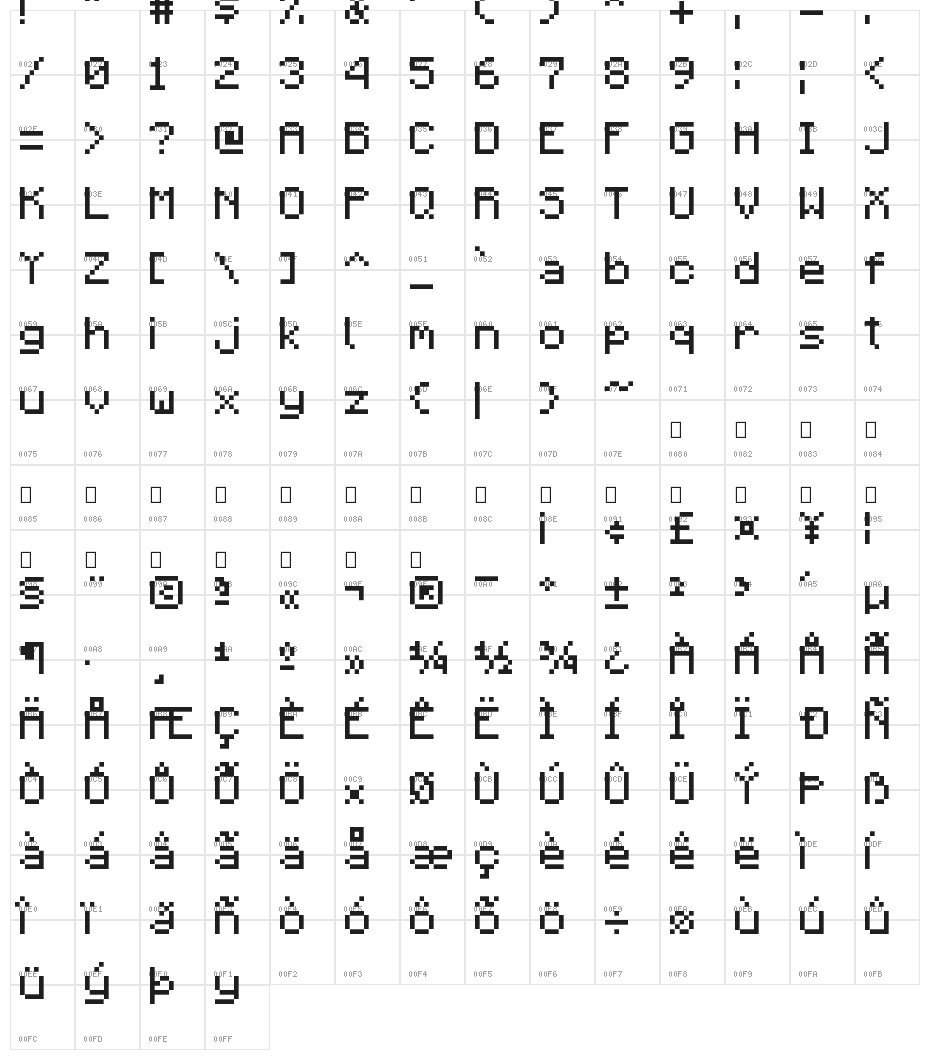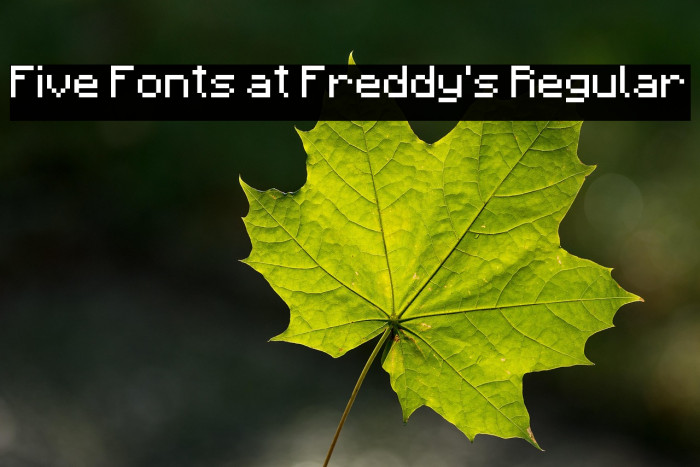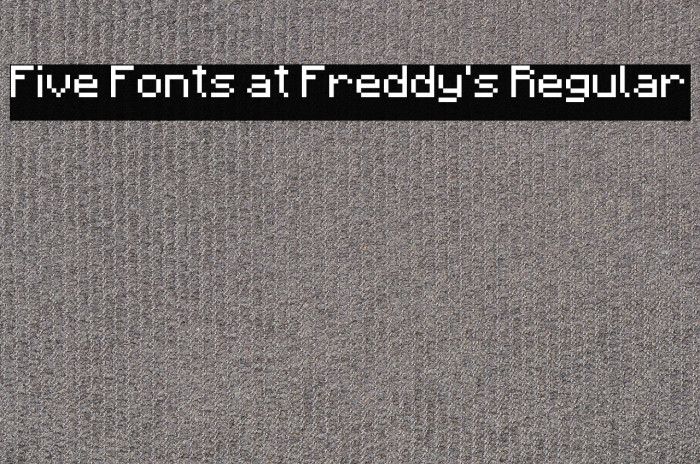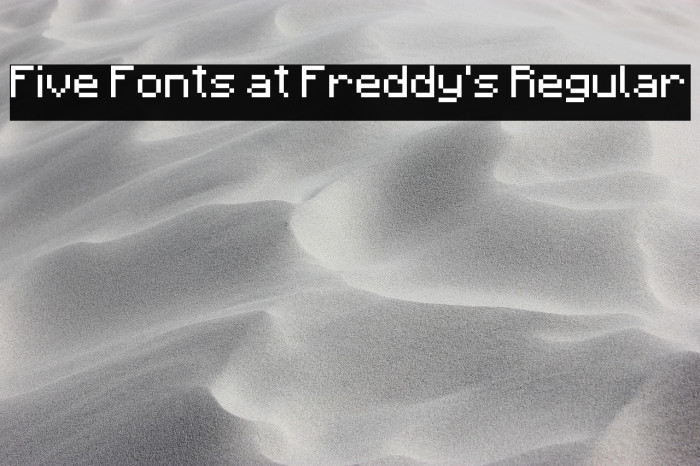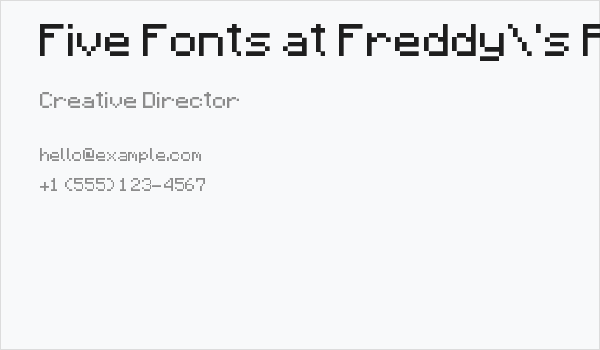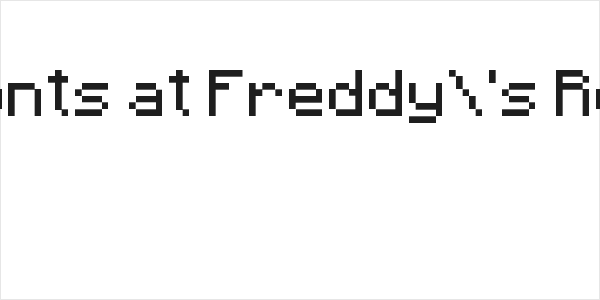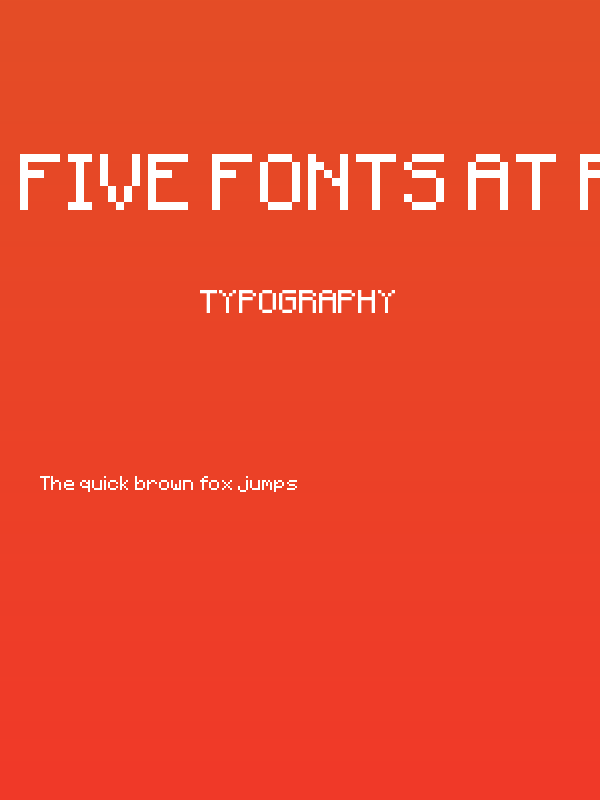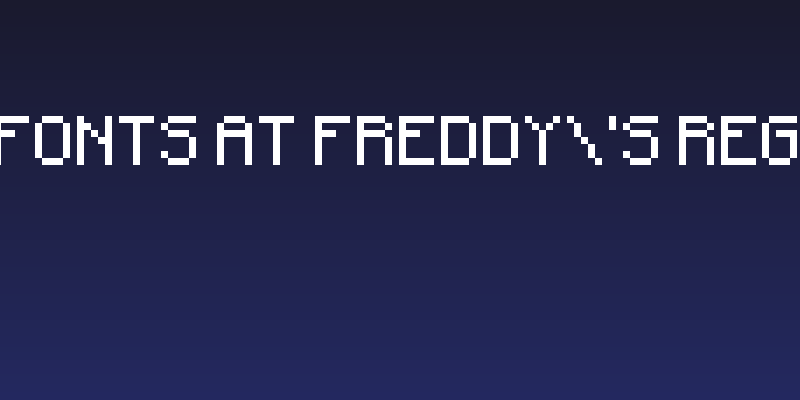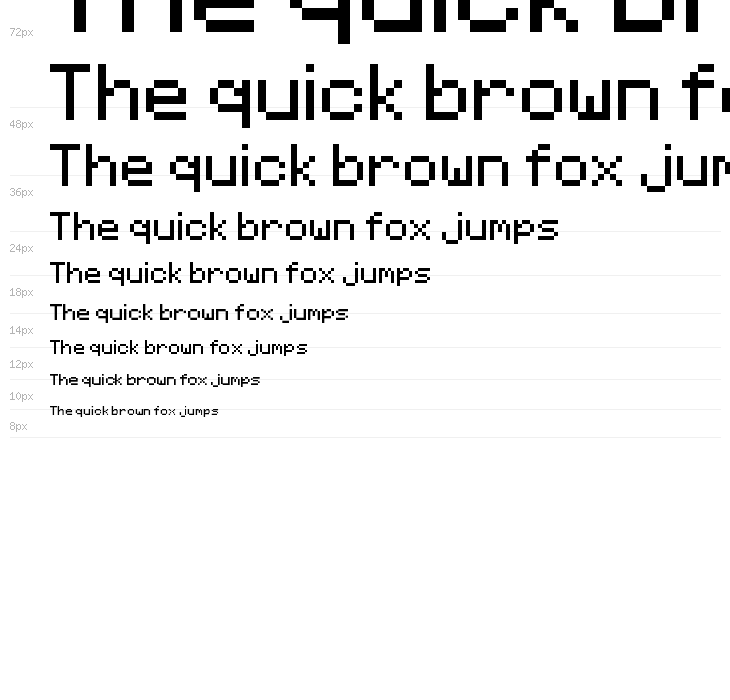
Five Fonts at Freddy's Regular Font
Five Fonts at Freddy's Regular Description
This font features a pixelated, blocky design reminiscent of early digital or arcade-style typefaces. Each character is composed of square, uniform pixels, giving it a retro, 8-bit appearance. The uppercase and lowercase letters maintain a consistent height, with clear distinctions between each character. Numbers and special characters follow the same pixelated style, ensuring uniformity across all glyphs. This design evokes a sense of nostalgia, ideal for projects that aim to capture the essence of classic video games or digital displays.
| Use Case | Headlines, Logos, Digital Art |
| Proposed Projects | Ideal for retro video game designs, digital art projects, or any creative work that seeks to emulate a vintage digital aesthetic. |